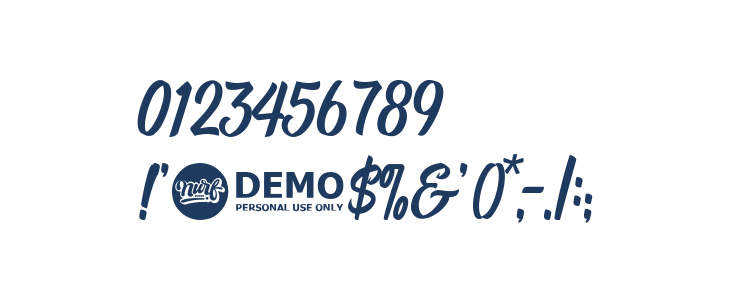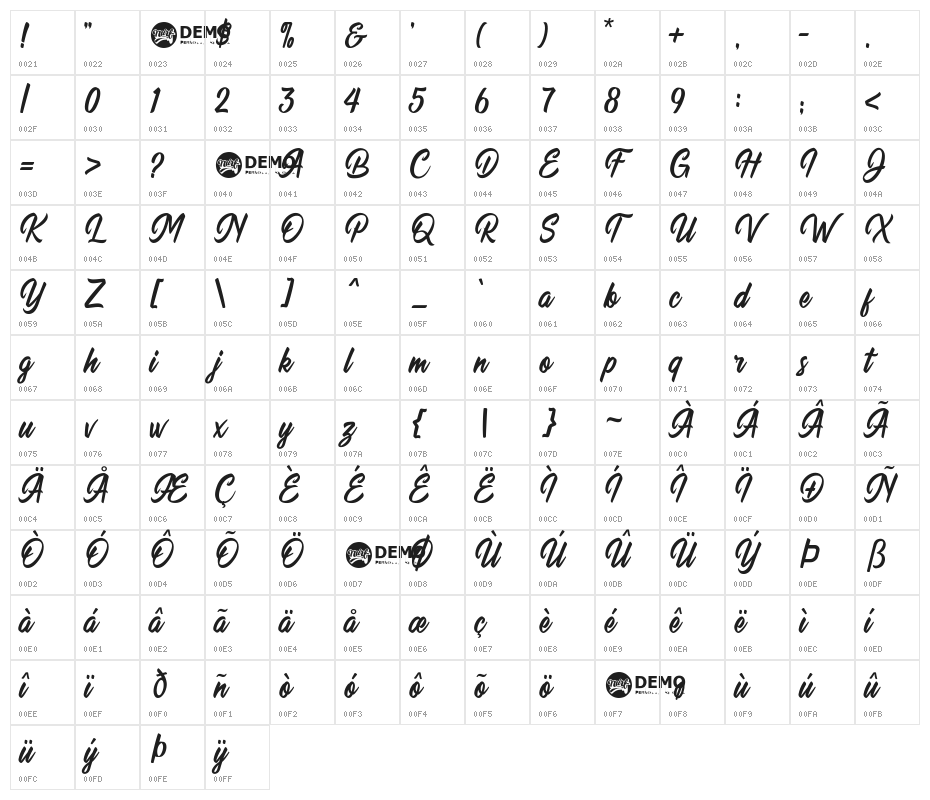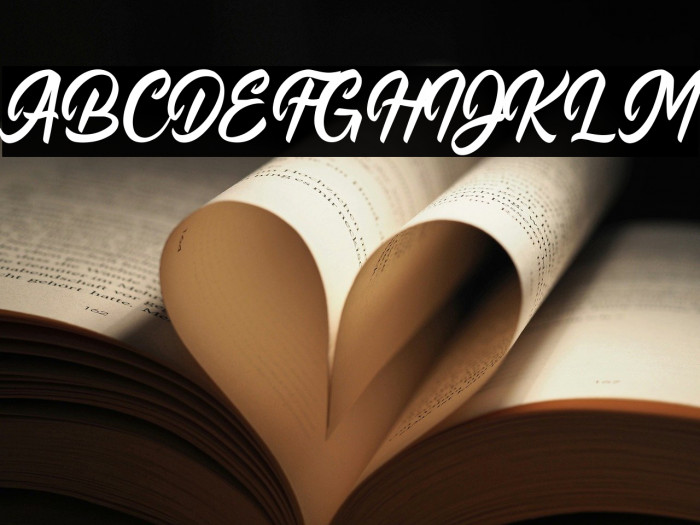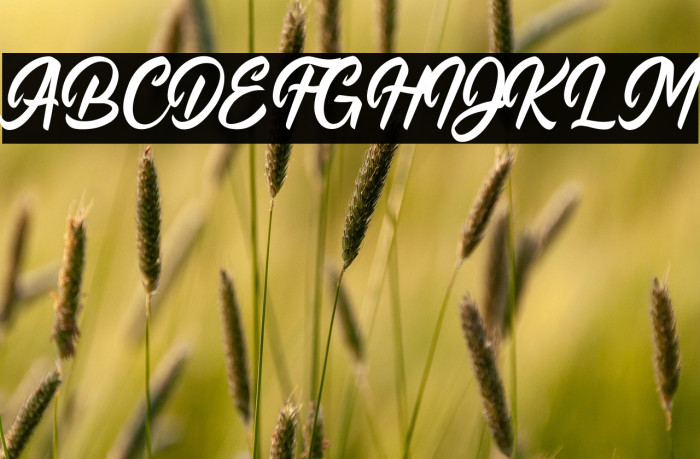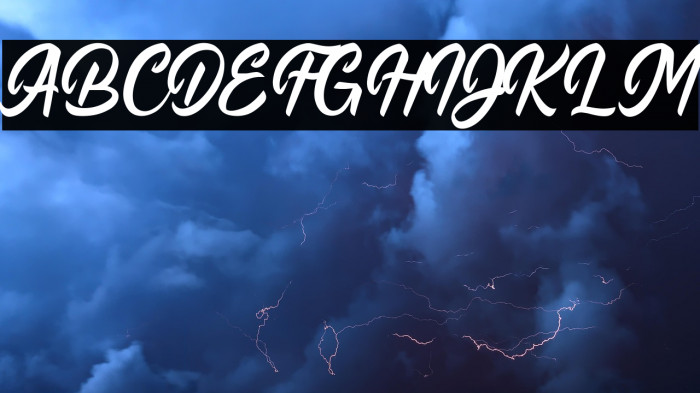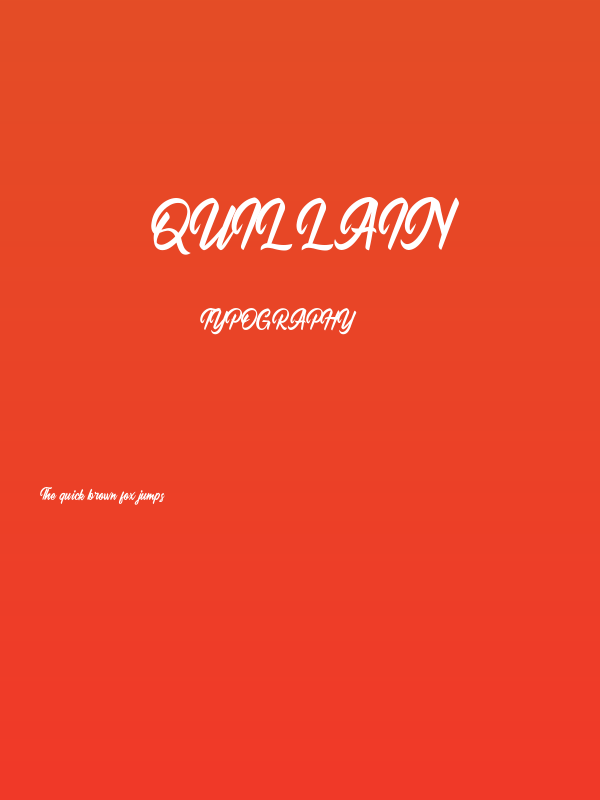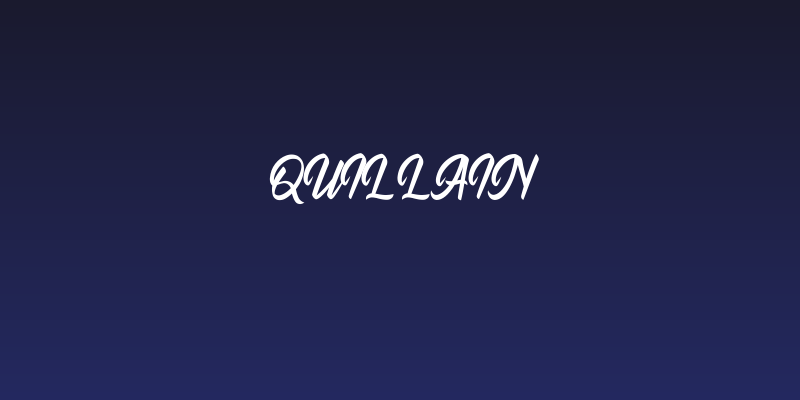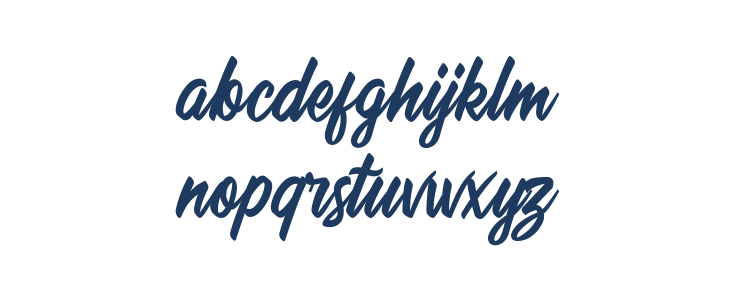
Quillain Font
Quillain Description
This font showcases a dynamic and flowing script style, characterized by its elegant cursive letters. The uppercase and lowercase letters exhibit a smooth, continuous stroke that mimics the fluidity of handwriting. The numerals and special characters maintain the same cursive aesthetic, ensuring consistency across all glyphs. The overall appearance is both stylish and legible, making it suitable for various design applications. The font's bold weight adds a sense of presence and impact, while the medium contrast in stroke thickness enhances readability. Its decorative flair is ideal for projects that require a touch of sophistication and elegance.